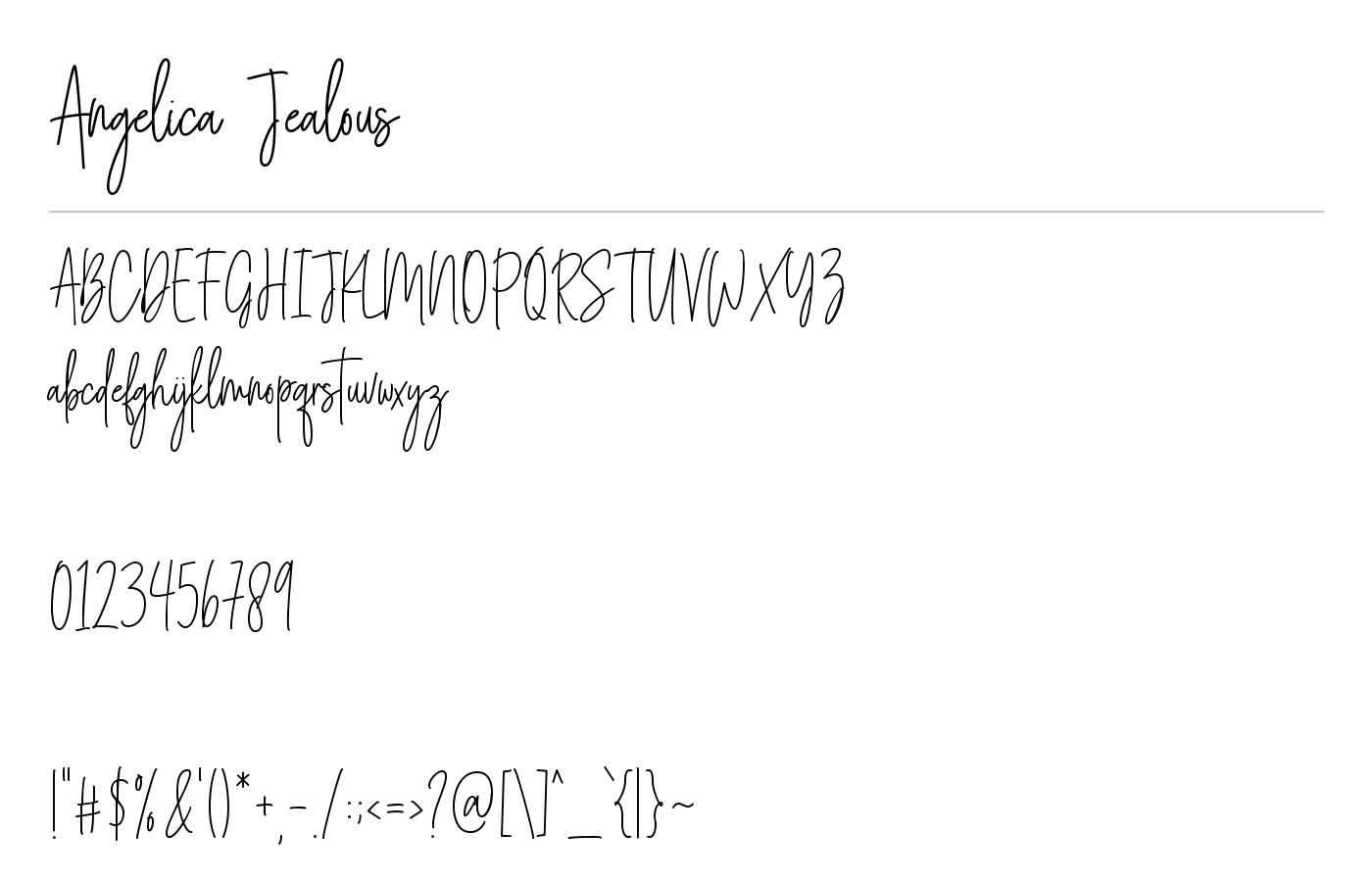
Angelica Jealous is a delicate handwritten script font characterized by tall, narrow letterforms with a playful yet elegant vibe. Its thin strokes and subtle irregularities give it a personal, casual feel, making it perfect for creative projects like invitations, greeting cards, and lifestyle branding where a touch of charm and individuality is desired. This font works best in headlines and short text rather than body copy, adding a whimsical and stylish flair to any design.
Angelica Jealous Font
About Angelica Jealous Font